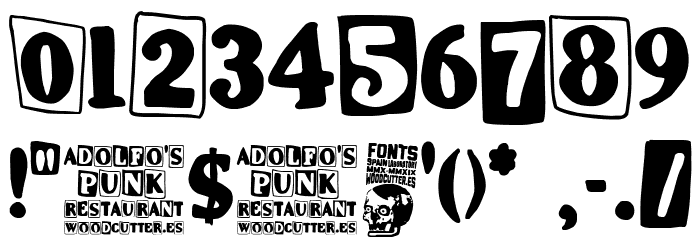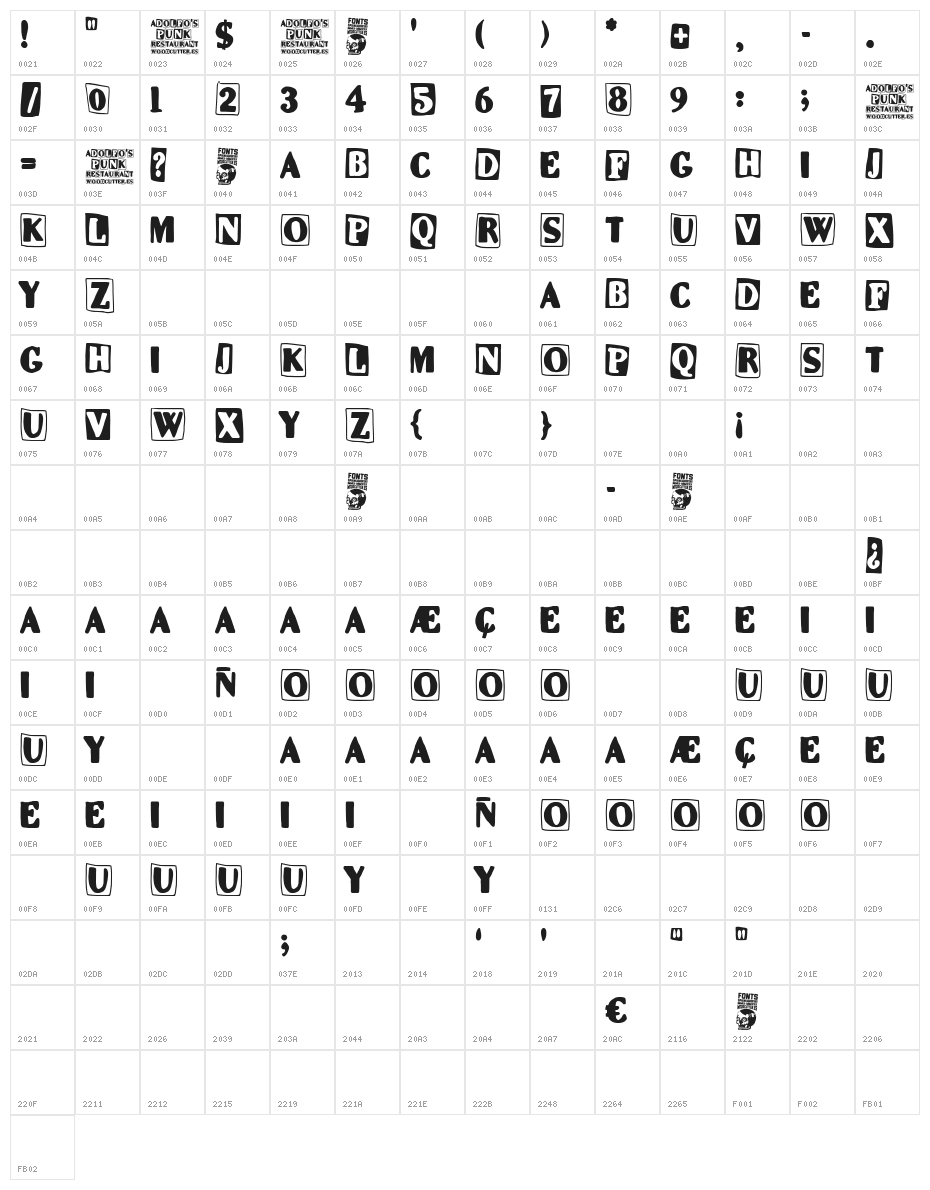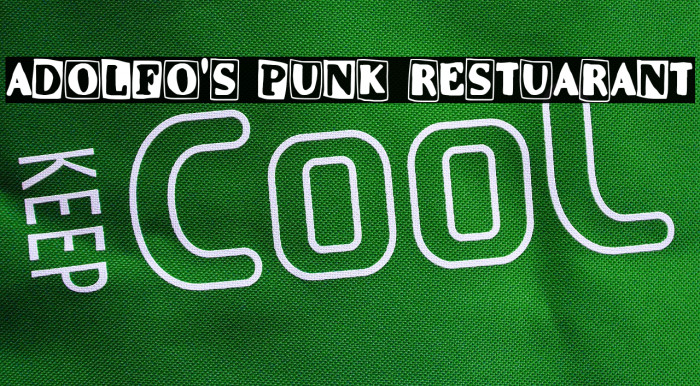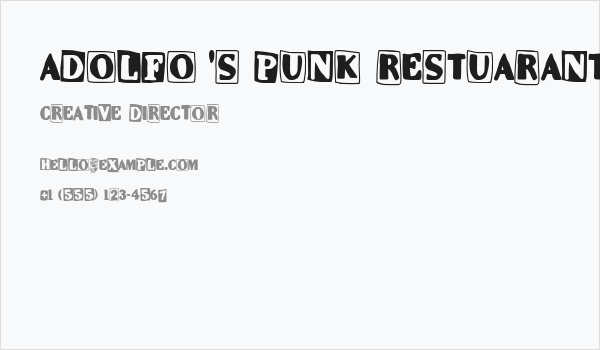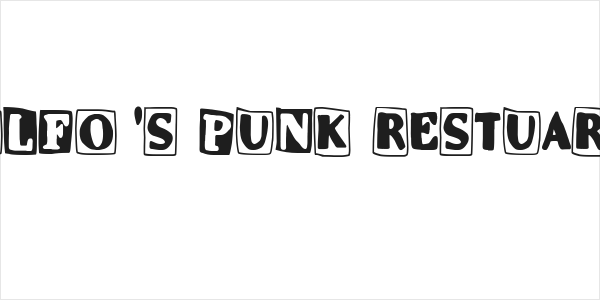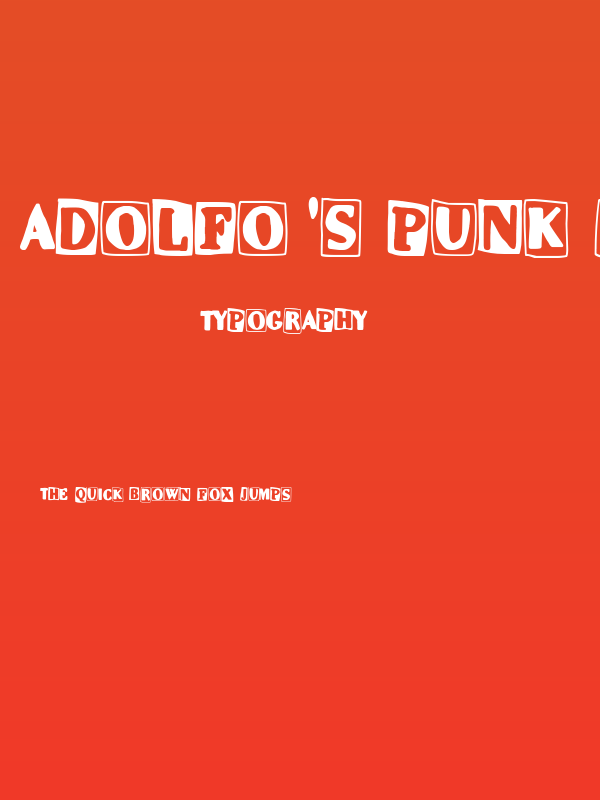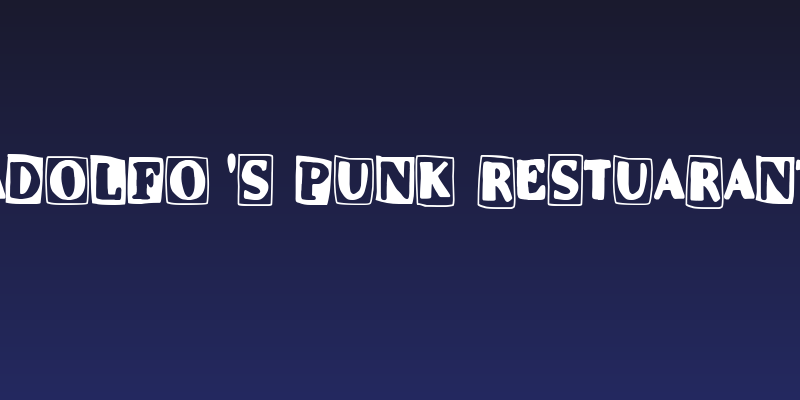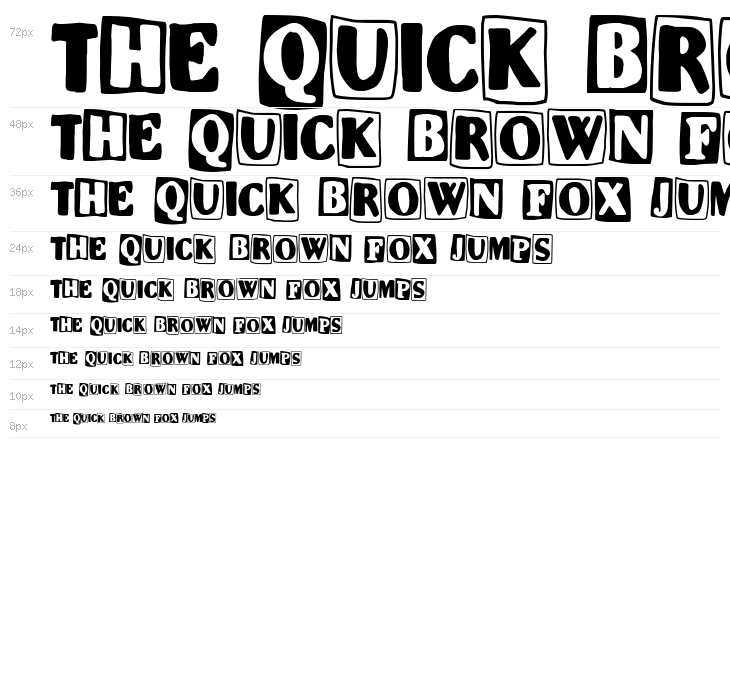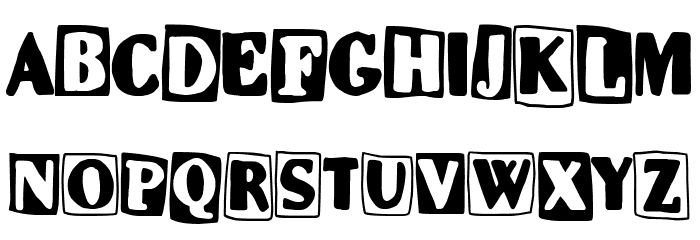
Adolfo's Punk Restuarant Font
Adolfo's Punk Restuarant Description
This font features a bold, playful style with a punk-inspired aesthetic. Each character is enclosed in a box, giving it a distinct, blocky appearance. The letters are irregular and quirky, with varying stroke thicknesses that add to the chaotic and energetic feel. The font is highly decorative, making it ideal for projects that require a strong visual impact. Its unique style is reminiscent of cut-out letters, often seen in punk zines and posters, giving it a rebellious and edgy vibe. The numbers and special characters follow the same boxed, bold style, ensuring consistency across all elements.
| Overall Style | Punk, Rebellious, Energetic |
| Proposed Projects | Ideal for music posters, album covers, event flyers, and any project needing a bold, rebellious aesthetic. |